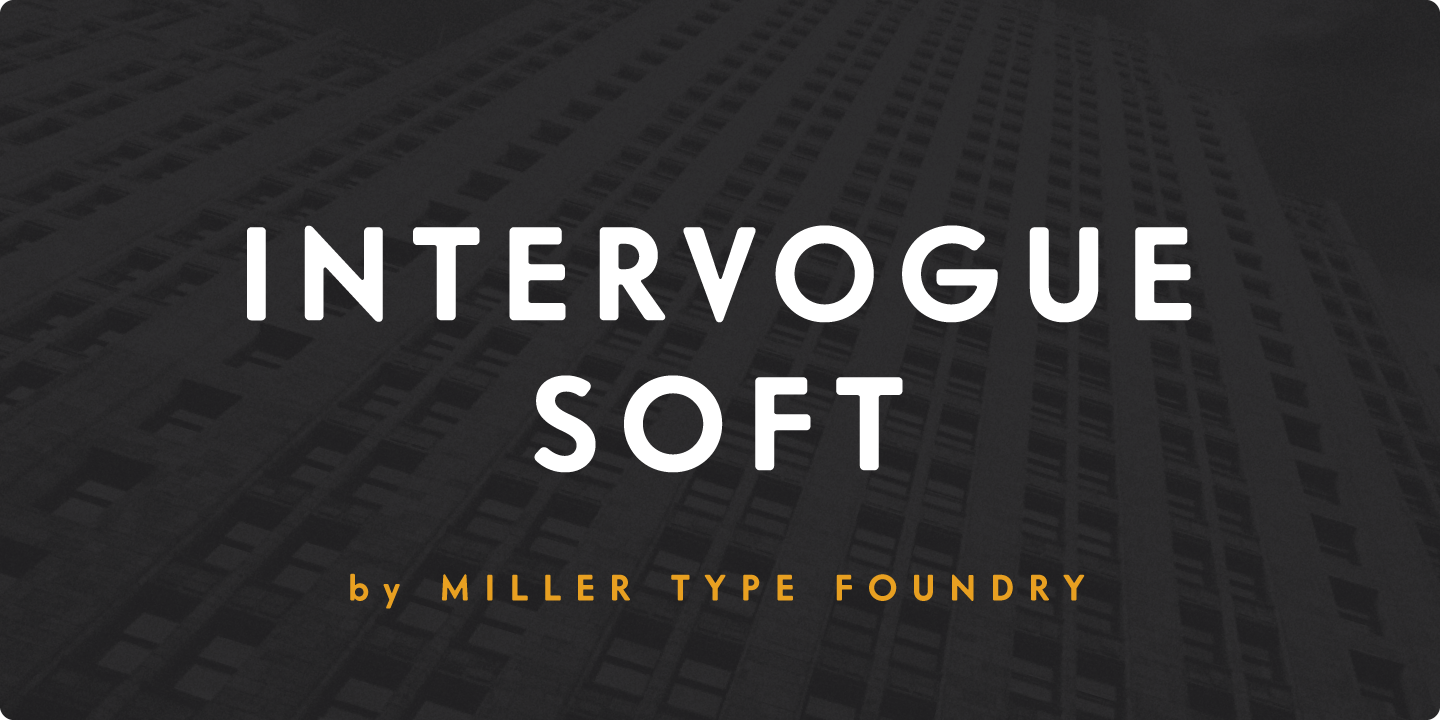
Intervogue Soft Font is a wonderfully friendly and versatile sans-serif typeface, perfect for designs that aim to convey approachability, softness, and a contemporary, clean aesthetic. Its smooth, rounded terminals and clear letterforms make it an excellent choice for tech company branding, mobile app interfaces, children's product packaging, and casual lifestyle blogs. Imagine it gracing the user experience of a sleek health and wellness app, providing a comfortable and inviting feel to food delivery service branding, or adding a fresh, accessible look to educational materials. This font is also superb for social media graphics, modern presentation slides, and any project where clarity, warmth, and a user-friendly visual identity are key. It doesn't just display text; it welcomes the reader with its gentle curves and modern charm.
What makes Intervogue Soft Font so exciting is its ability to combine the professionalism of a strong sans-serif with the softness and warmth that rounded edges provide. It possesses a distinctive appeal that feels both robust and airy, making it incredibly versatile for a wide range of applications. This unique combination allows designers to create visually compelling content that is highly readable and aesthetically pleasing, fostering a sense of trust and ease. It’s a font that speaks with a clear, friendly voice, making it ideal for brands and content creators who want to convey reliability, innovation, and a contemporary, human-centered aesthetic. Its versatile appeal can make any design feel more cohesive and effortlessly modern.
The Intervogue Soft Font family typically offers a comprehensive range of weights and styles to provide extensive design flexibility and allow for nuanced typographic expressions. While the exact variations can differ based on the specific design, you can generally expect to find key members that support diverse layout needs, such as:
• Intervogue Soft Thin
• Intervogue Soft Light
• Intervogue Soft Regular
• Intervogue Soft Medium
• Intervogue Soft SemiBold
• Intervogue Soft Bold
• Intervogue Soft ExtraBold
• Intervogue Soft Black
• Intervogue Soft Italic (for various weights)